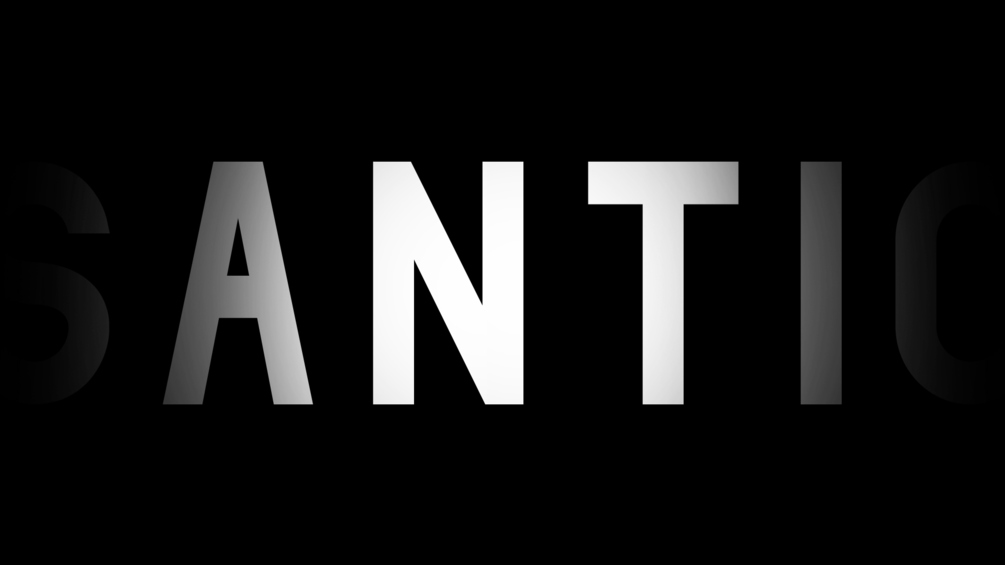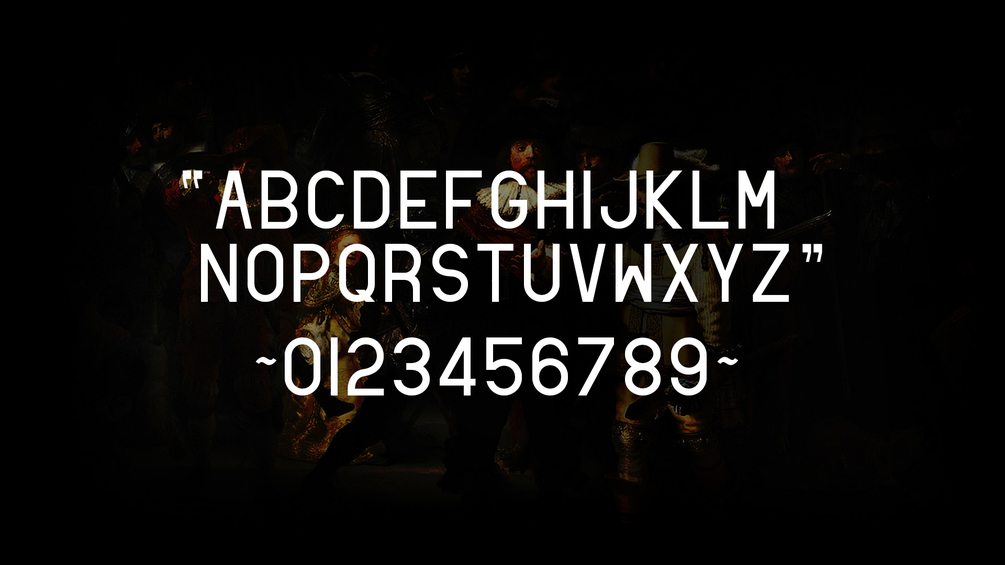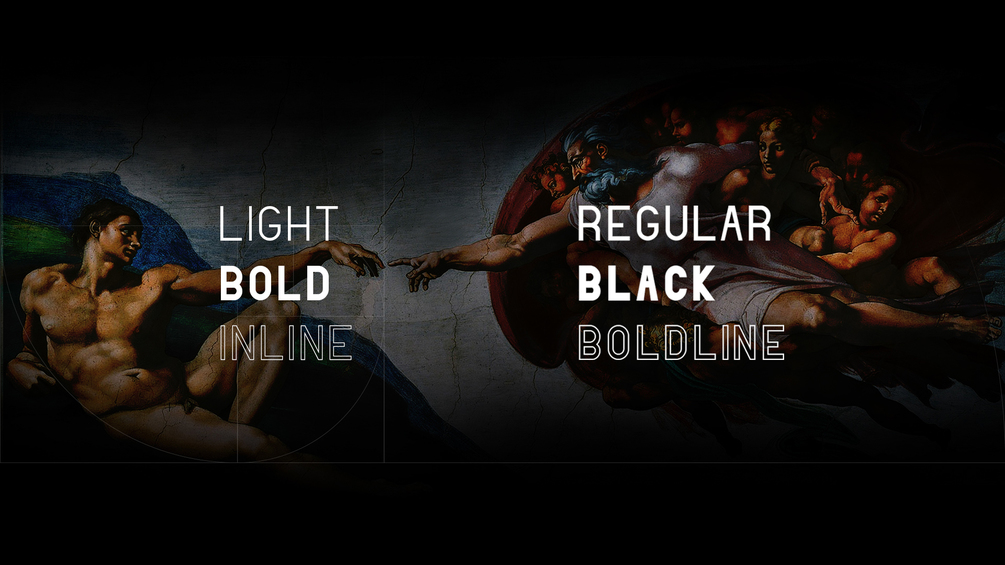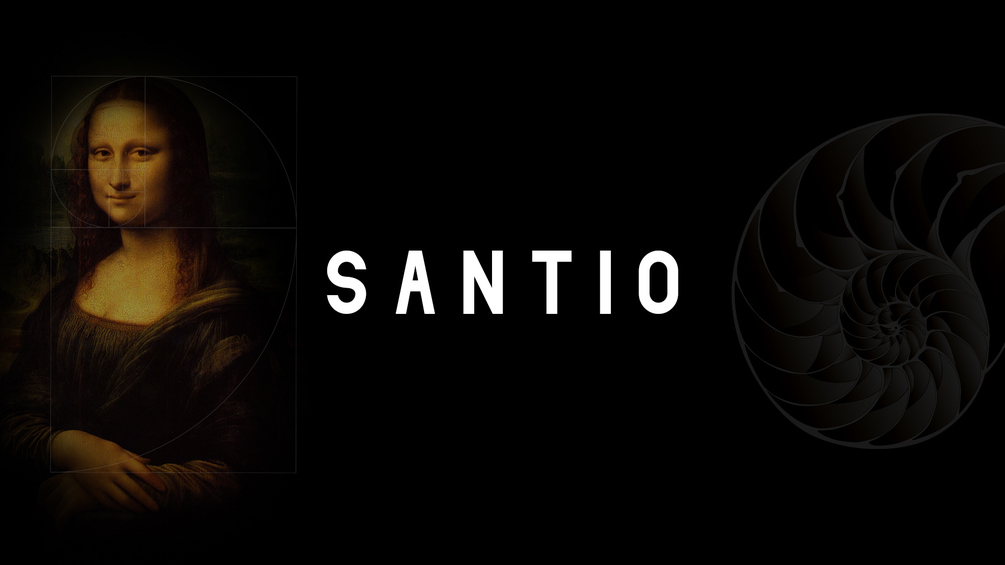
Santio Font Family
Santio – is a cross between a geometric & humanist grotesk. A style that was popular on shop windows, book covers, and minimalist labelling. Perfect choice for motivational posters due to its monospaced look. This typeface will look perfect on postcards, especially those with the slight touch of vintage. Logos, headlines, tags – a variety of areas where Antelope can be used is vast.